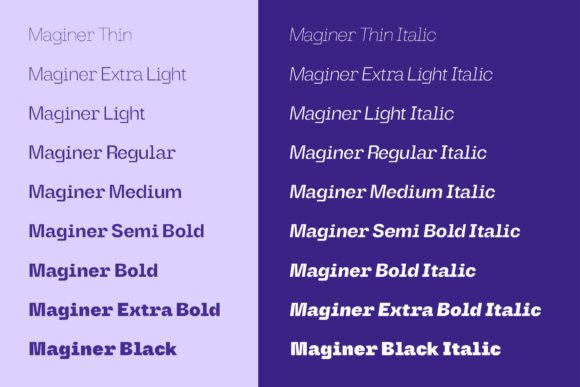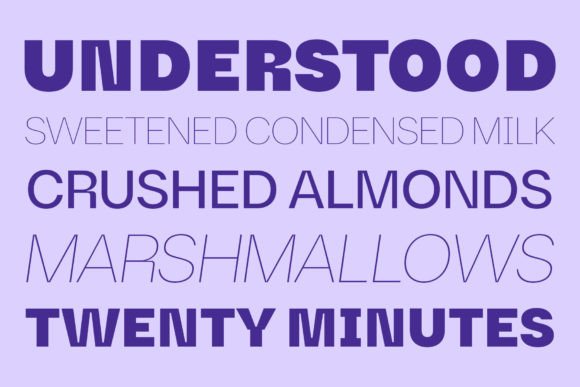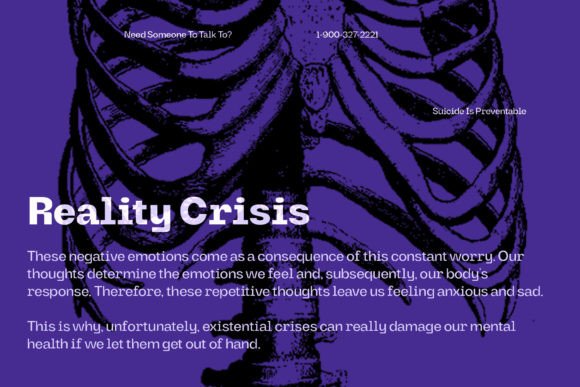
Introduction to Maginer Font
Maginer is a fun and quirky display font.
Masterfully designed to become a true favorite, this font has the potential to bring each of your creative ideas to the highest level .
Maginer Font offers exceptional quality and versatility, making it a valuable addition to your design toolkit. Whether you’re creating for personal projects or commercial use, Maginer Font delivers professional results.